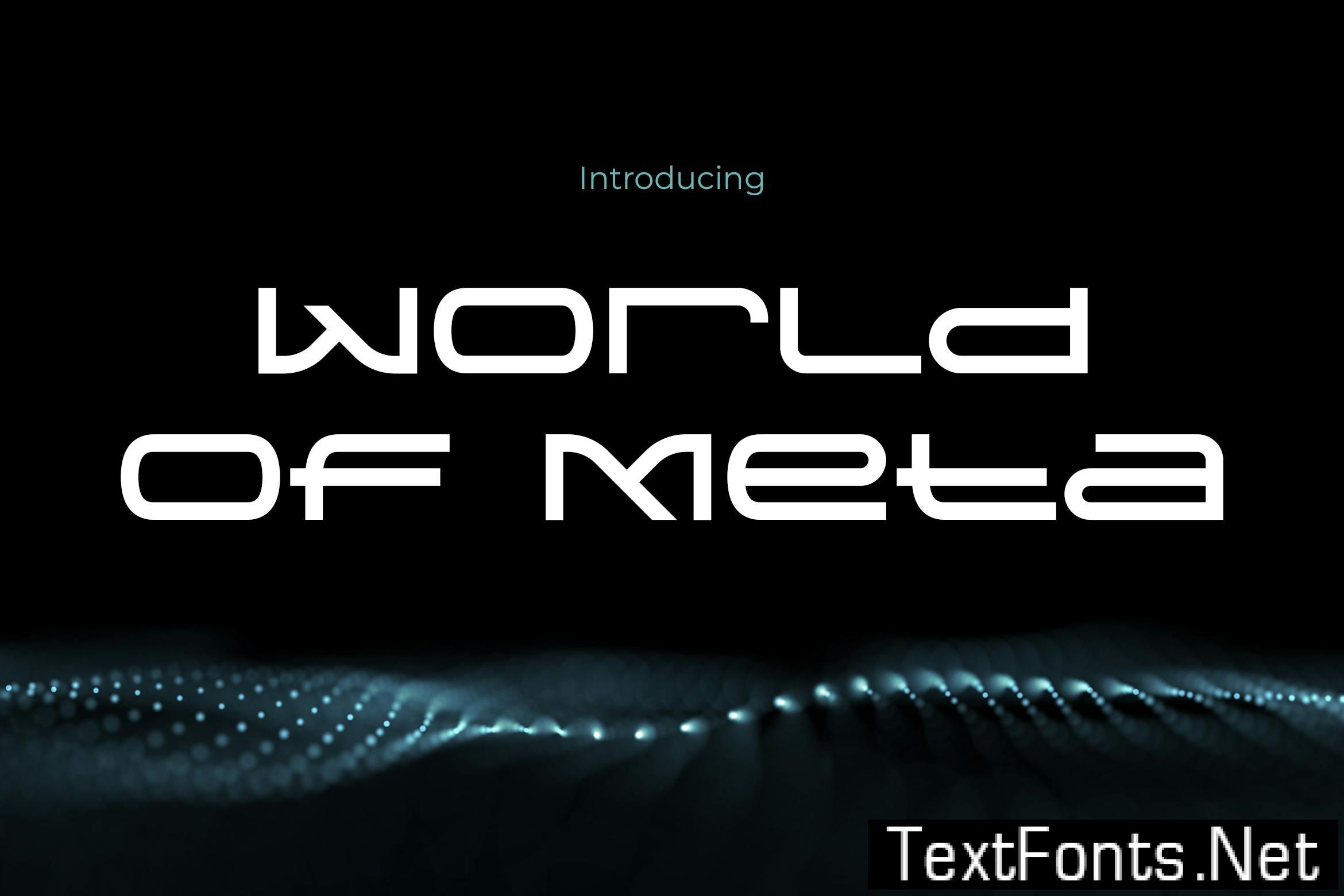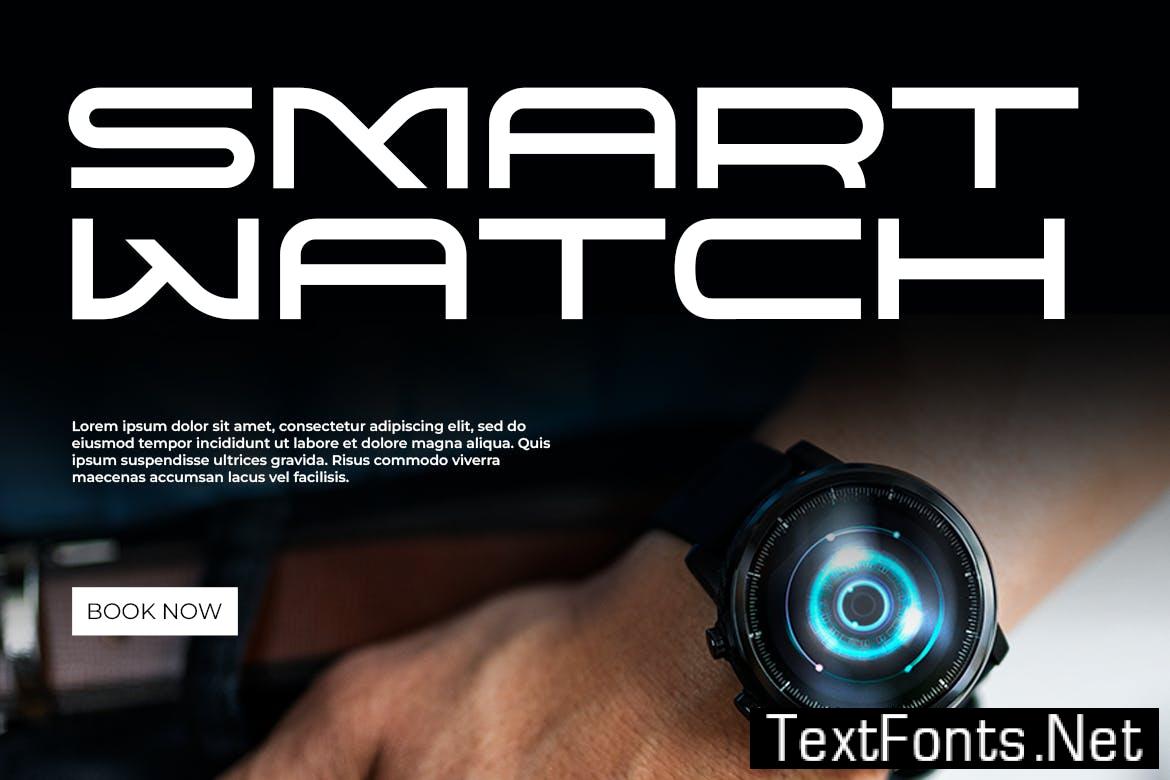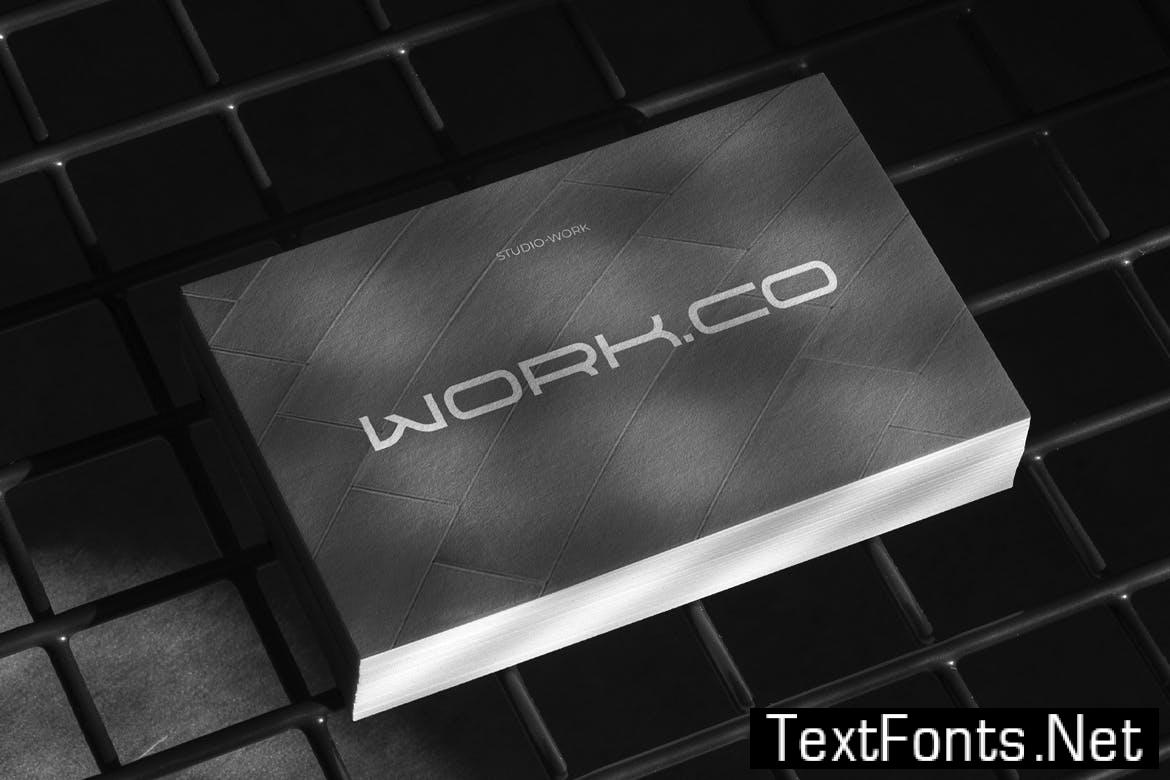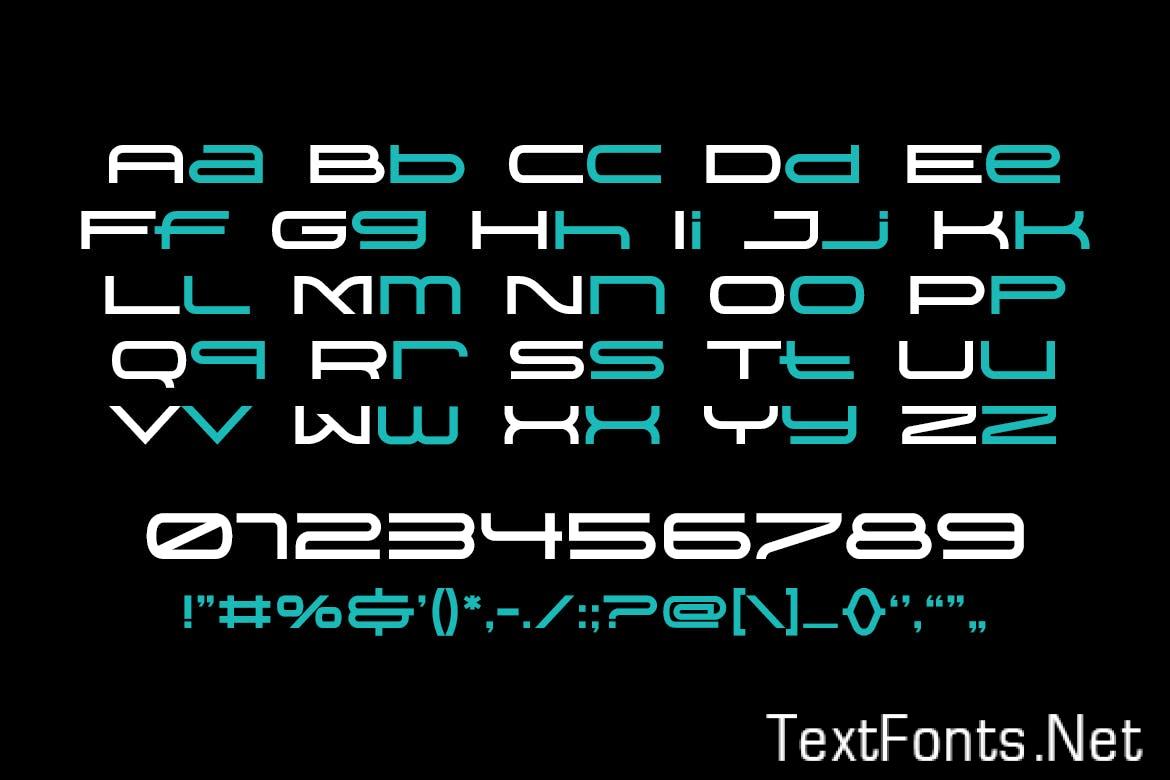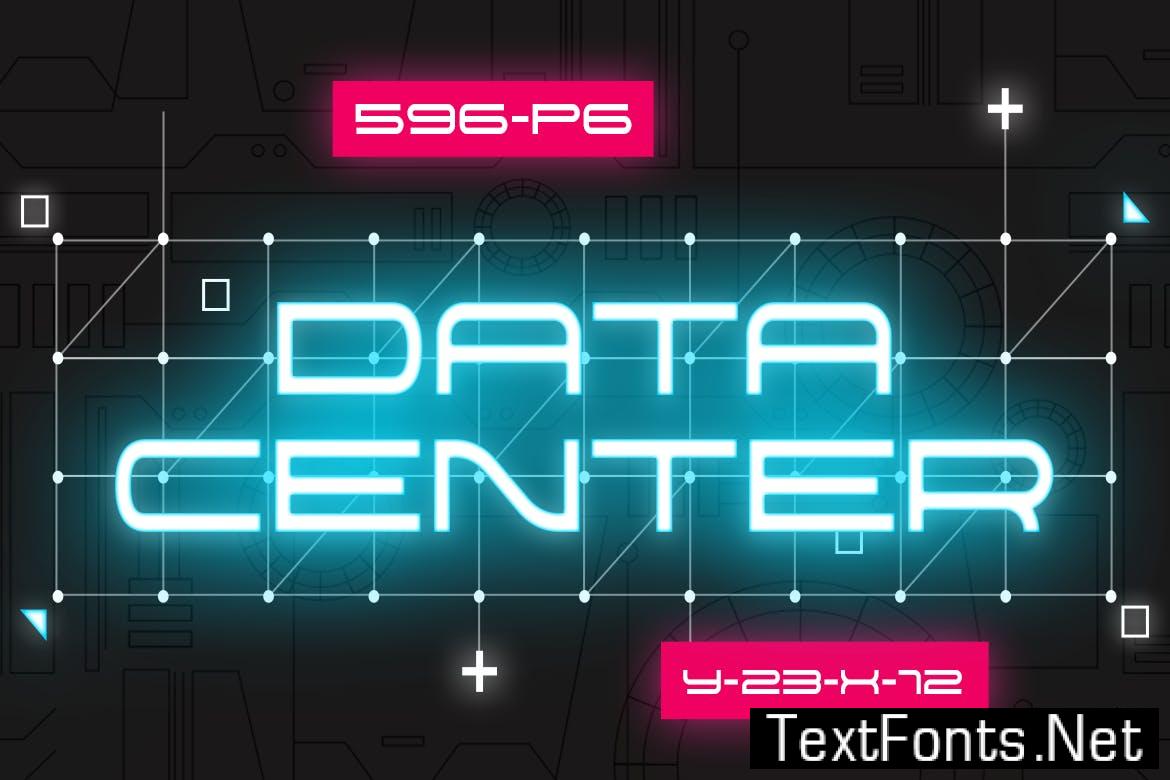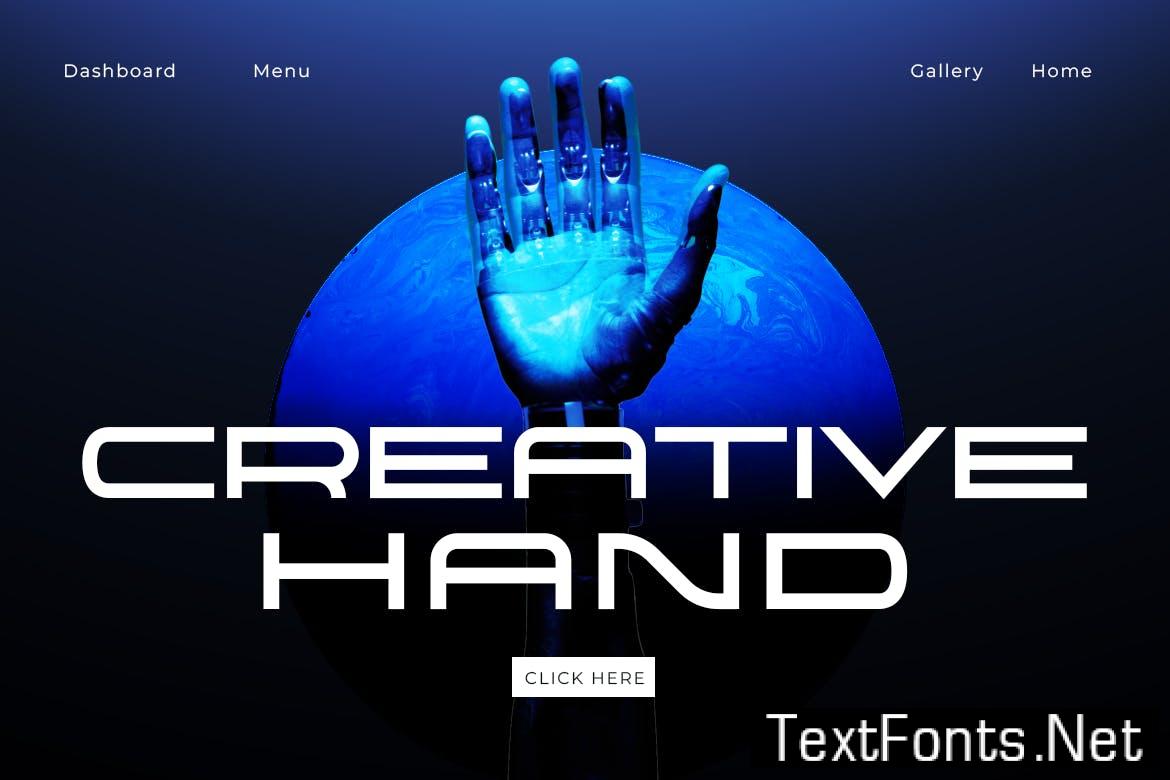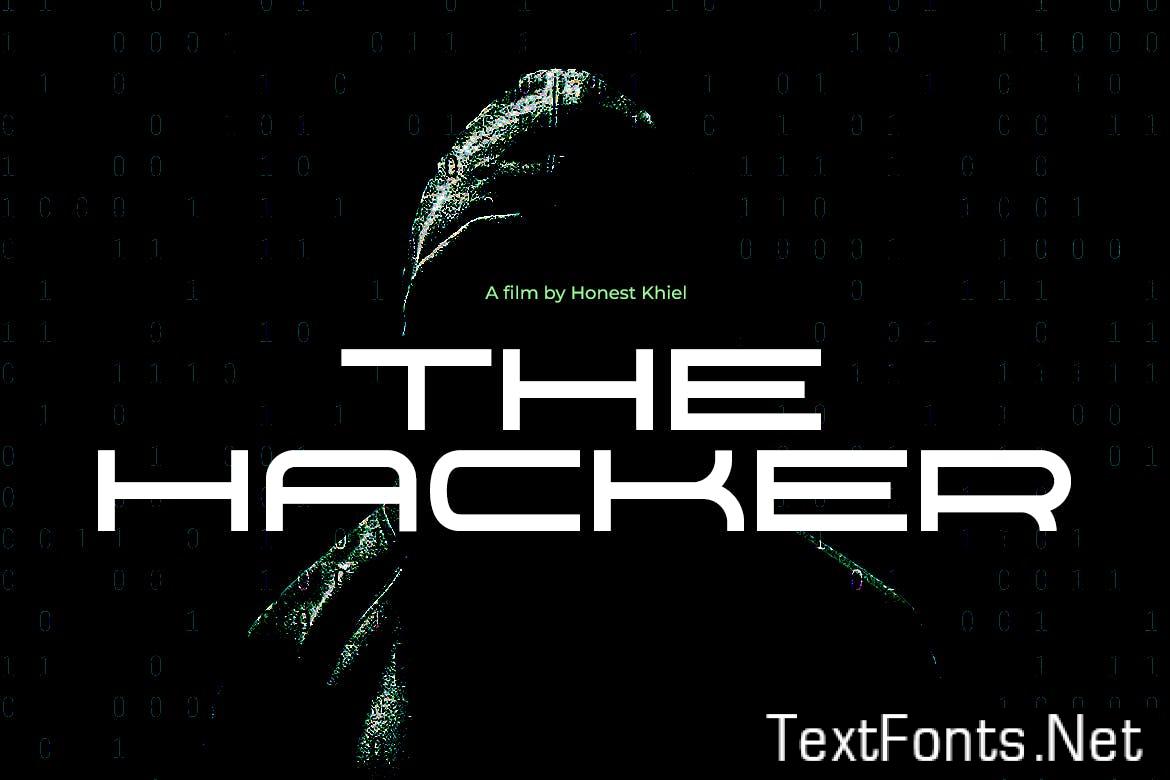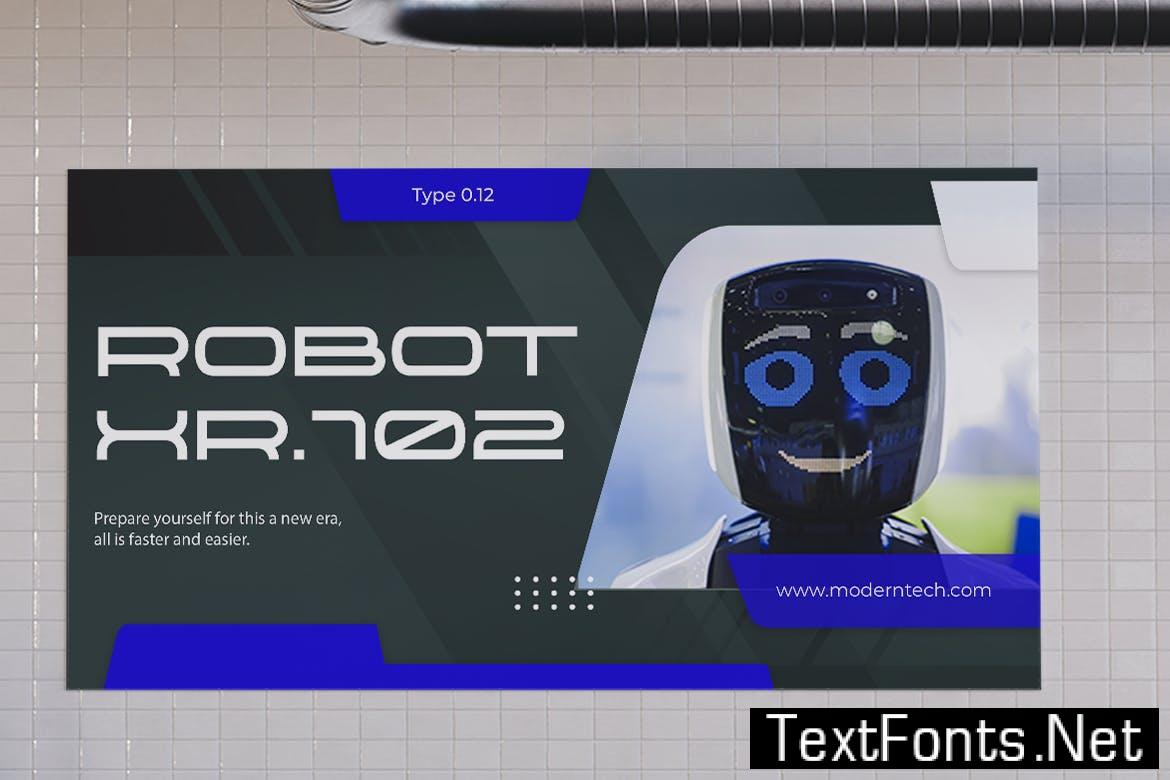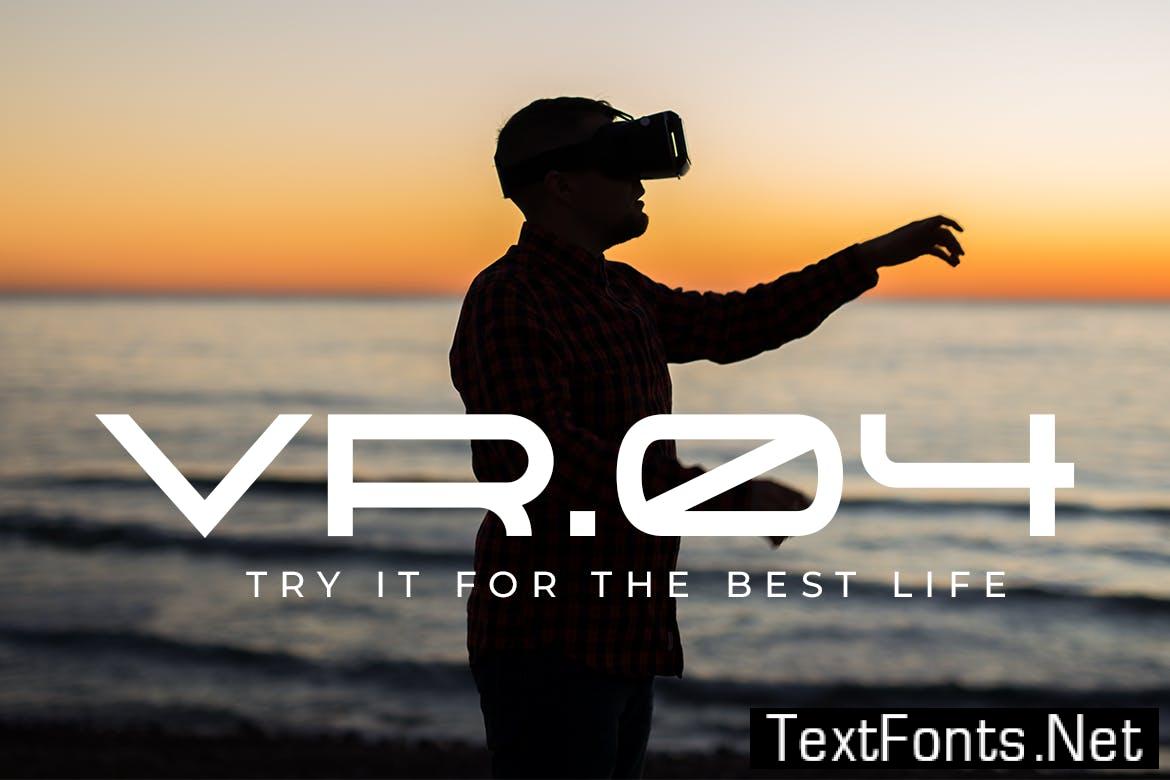
World of Meta is a futuristic font that embodies the cutting-edge of modern design, crafted for those looking to make a bold statement in the digital age. Its sleek, forward-looking aesthetic makes it perfect for various applications, from tech-centric branding to innovative advertising. Whether creating striking logos, impactful quotes, or inviting posters, World of Meta brings your projects a dynamic and visionary flair. Its modern style is especially suited for greetings, packaging, and event promotions, where contemporary elegance is key. This font also excels in crafting covers and headlines that catch the eye, ensuring your message stands out and resonates with an audience attuned to the future.